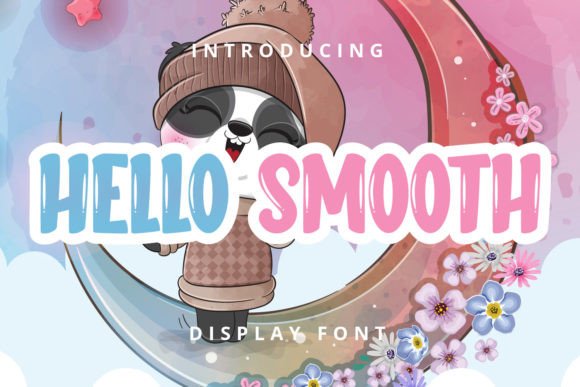
Buckle up, typography enthusiasts, for a joyride into the world of Hello Smooth Font – a playful and cool display font that will ignite your creativity and make your designs dance with delight. This charming font, crafted with meticulous attention to detail by the talented team at Planetz Studio, is an absolute gem waiting to be discovered.
Hello Smooth Font isn't just another font; it's an explosion of personality that adds a touch of magic to every project it graces. Its playful curves and cheerful characters will instantly transport you to a world of imagination and wonder, making it the perfect choice for designs targeting children's products, invitations, posters, and anything that calls for a dash of whimsy.
With Hello Smooth Font, you'll be the talk of the town. Its unique style, inspired by the innocent joy of childhood, will make your designs stand out from the crowd, leaving a lasting impression on your audience. Unleash your creativity and let the Hello Smooth Font take you on an unforgettable journey, where every letter tells a story and every word paints a picture.
But wait, there's more! Hello Smooth Font is not just a pretty face; it's also incredibly versatile. Its friendly and inviting nature makes it a perfect fit for a wide range of projects, from eye-catching logos that demand attention to captivating social media posts that engage your audience. Whether you're a seasoned designer or just starting, Hello Smooth Font will be your trusty companion, adding a touch of charm and uniqueness to every project.
So, why settle for ordinary when you can have extraordinary? Embrace the Hello Smooth Font and watch your designs transform into masterpieces. Its playful spirit and endless possibilities will make your creative dreams come true. Don't miss out on this typographic gem; add Hello Smooth Font to your collection today and let the good times roll!